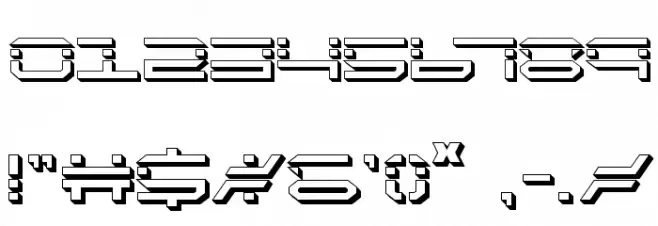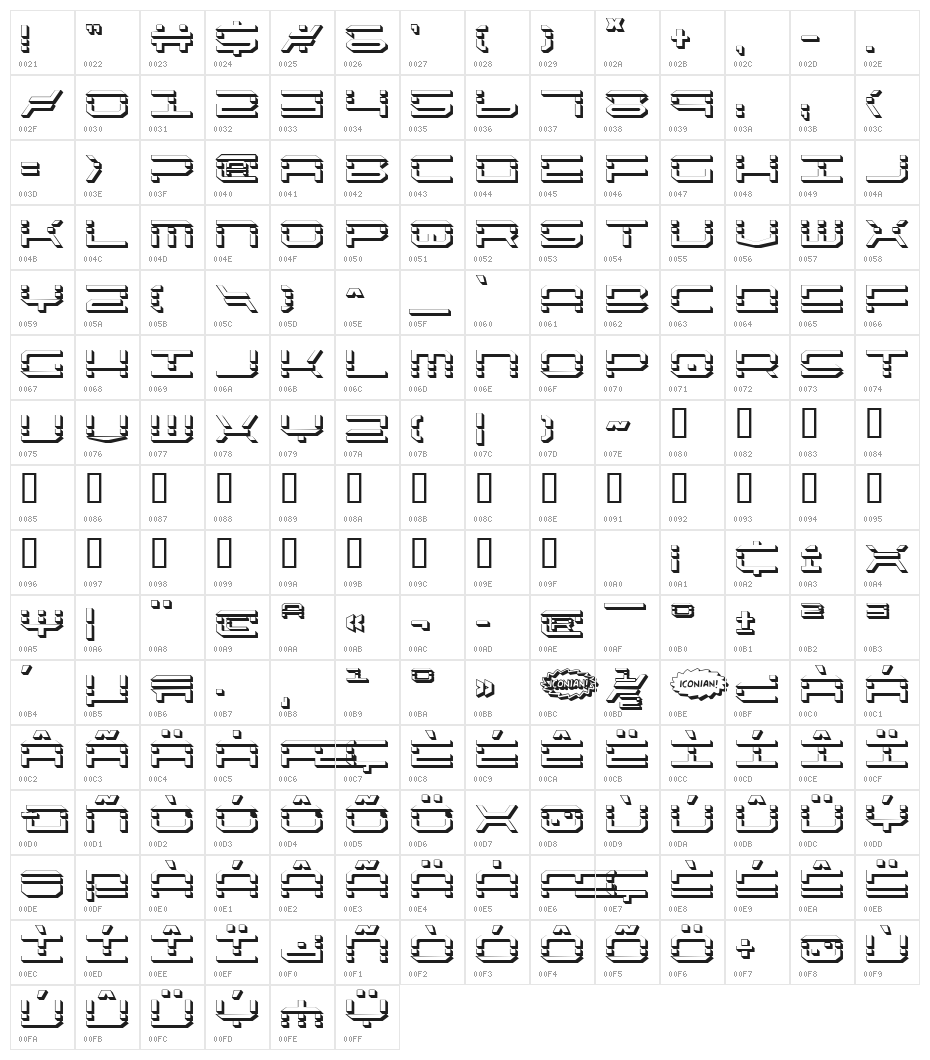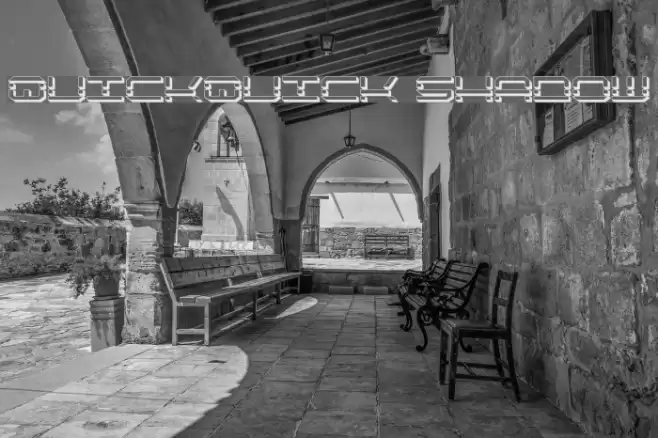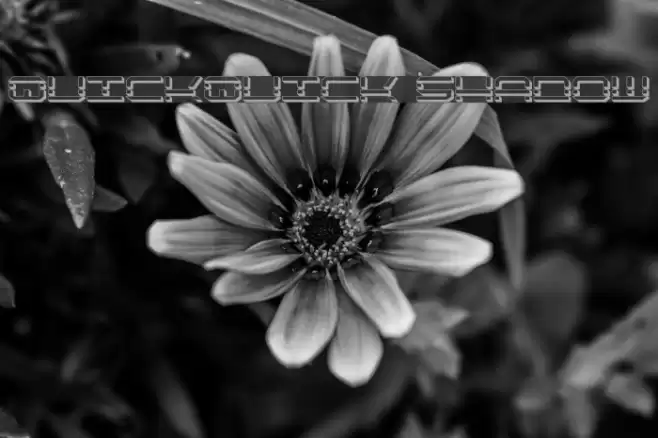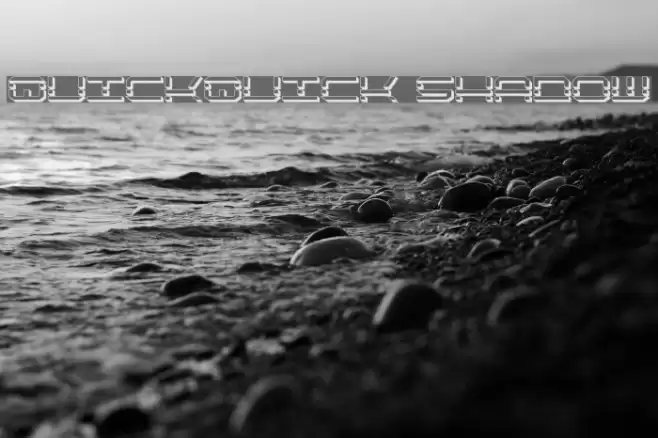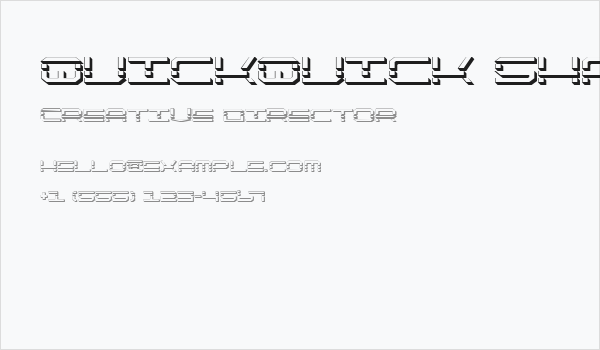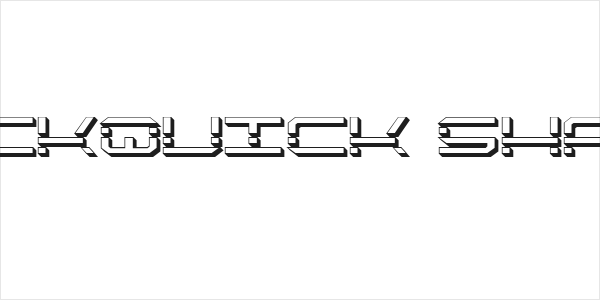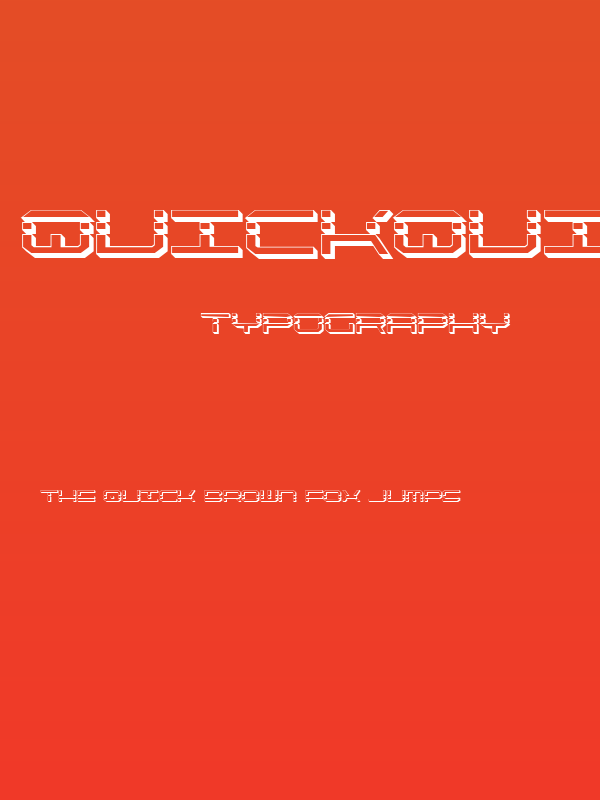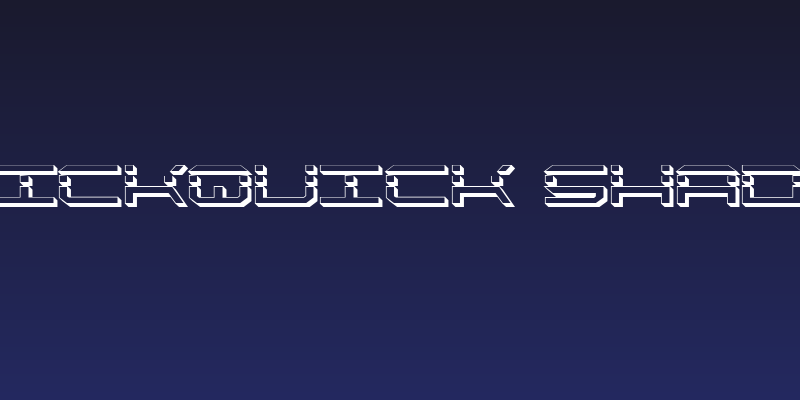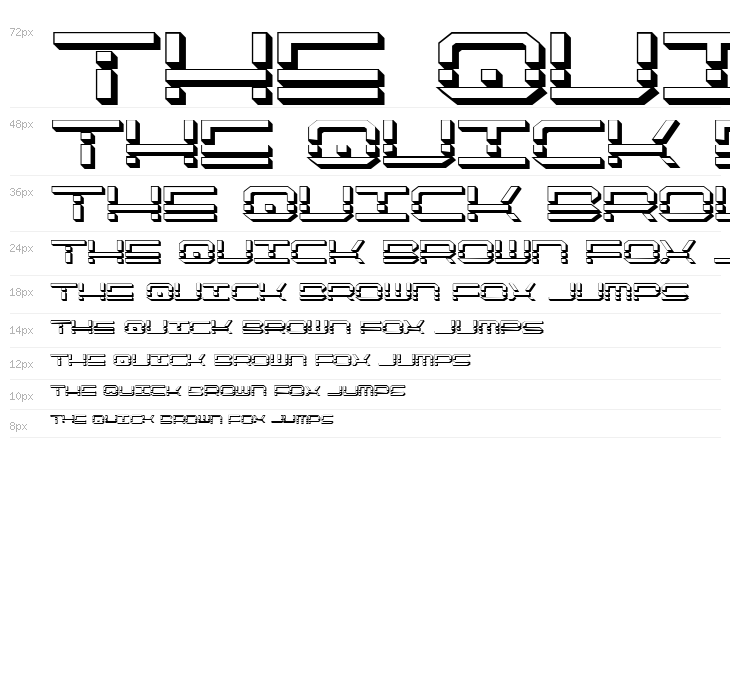
QuickQuick Shadow Font
QuickQuick Shadow Description
This font features a futuristic and geometric design with a distinct shadow effect that gives it a three-dimensional appearance. The characters are constructed with bold, angular lines and sharp edges, creating a sense of depth and movement. The uppercase and lowercase letters maintain a consistent style, with a unique interplay of solid and outlined sections. The numerals and special characters follow the same design principles, ensuring uniformity across the typeface. This font's modern and dynamic look makes it suitable for projects that require a bold and eye-catching aesthetic.